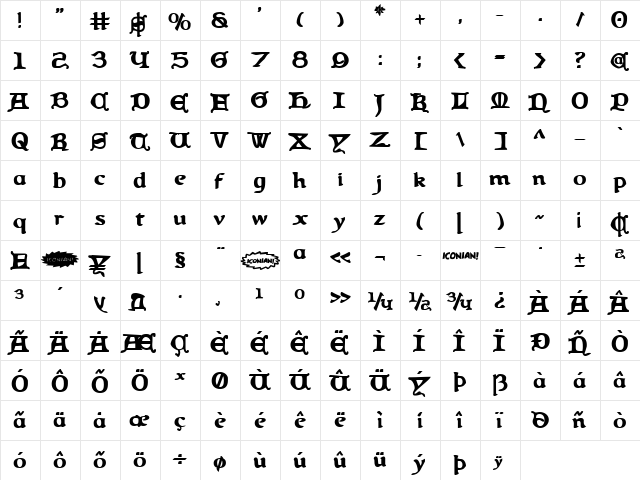
Queen & Country Bold Bold
Design Context for Queen & Country Bold Typeface
Queen & Country Bold is a composed and adaptable typeface that performs quietly and consistently across a wide range of design contexts. The heavy weight commands attention and anchors typographic hierarchies.